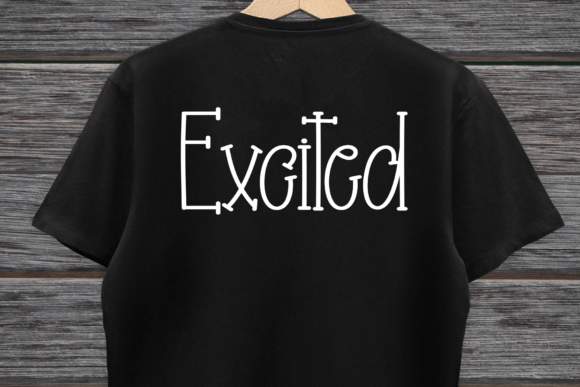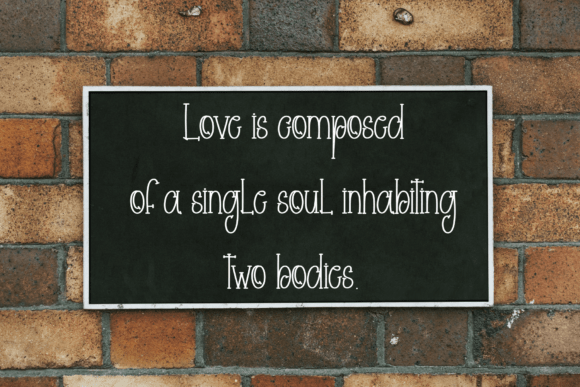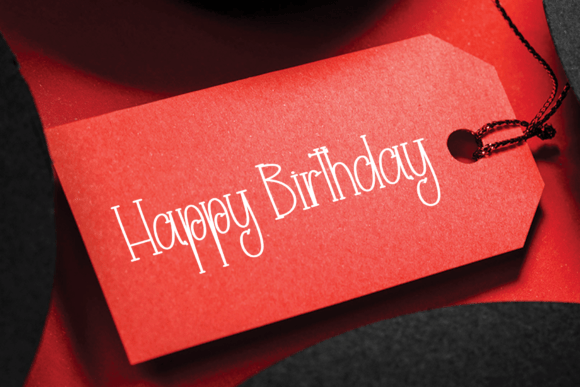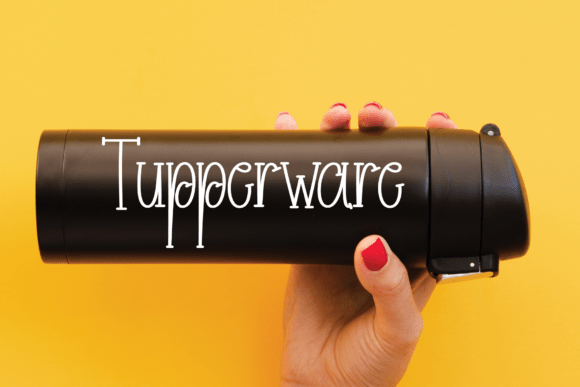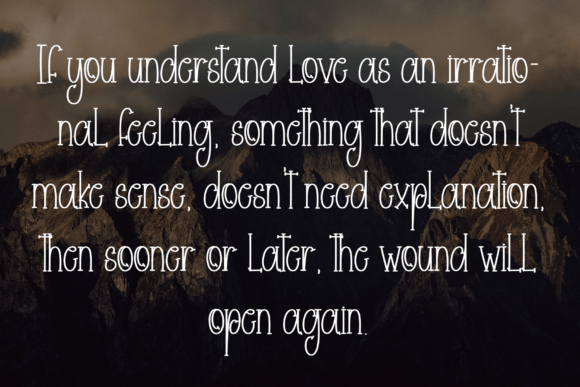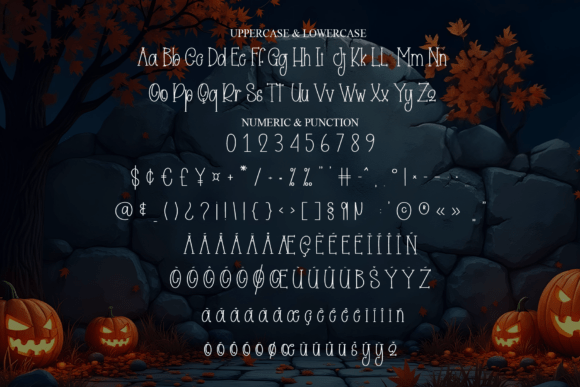
Unleash the Spookiness: A Comprehensive Guide to Background Halloween Fonts
Halloween is just around the corner, and with it comes the excitement of creating spooky and fun designs for invitations, cards, and other creative projects. One of the key elements in creating a captivating design is the font used. In this article, we’ll explore the world of Background Halloween Fonts and introduce you to a delightful alternative, Sweet Handscript, a joyfully charismatic hand-drawn display font.
The Power of Fonts in Design
Fonts play a crucial role in design, as they can make or break the overall aesthetic and feel of a project. When it comes to Halloween designs, the right font can evoke a sense of spookiness, eeriness, or playfulness. Background Halloween Fonts, in particular, can add a unique touch to your designs, setting the tone for a thrilling and unforgettable experience.
Introducing Sweet Handscript: A Joyful Alternative
While Background Halloween Fonts are perfect for creating spooky designs, Sweet Handscript offers a refreshing alternative. This hand-drawn display font is designed to bring a sense of fun and amiability to any canvas. Its endearing design effortlessly infuses every design scenario with a whimsical touch that is undeniably captivating. Whether you’re crafting elegant wedding invitations or playful cards, Sweet Handscript is the perfect choice.
Characteristics of Sweet Handscript
- Hand-drawn charm: Sweet Handscript boasts a unique, handcrafted feel that adds warmth and personality to your designs.
- Whimsical touch: Its playful design injects a sense of fun and amiability into any project.
- Elegant and playful: Perfect for creating elegant wedding invitations, playful cards, or any design that requires a touch of sophistication and whimsy.
- Captivating: Its endearing design effortlessly captures the attention of your audience, making your designs unforgettable.
Why Choose Sweet Handscript for Your Halloween Designs?
While Background Halloween Fonts are perfect for creating spooky designs, Sweet Handscript offers a unique approach to Halloween design. Its playful and whimsical touch can add a refreshing twist to traditional Halloween designs. Use Sweet Handscript to create:
- Playful Halloween invitations: Add a touch of fun and whimsy to your Halloween invitations, making them perfect for kids’ parties or casual gatherings.
- Spine-tingling party cards: Create eye-catching party cards that will leave your friends and family eager to join in on the fun.
- Eerie yet elegant Halloween decorations: Use Sweet Handscript to add a touch of sophistication to your Halloween decorations, making them perfect for adults’ gatherings or formal events.
Tips for Pairing Sweet Handscript with Background Halloween Fonts
For a unique and captivating design, consider pairing Sweet Handscript with Background Halloween Fonts. Here are some tips to get you started:
- Mix and match: Combine Sweet Handscript with a Background Halloween Font to create a striking contrast that adds visual interest to your design.
- Balance playfulness and spookiness: Use Sweet Handscript to balance out the spookiness of a Background Halloween Font, creating a design that’s both fun and eerie.
- Experiment with font sizes and styles: Play around with different font sizes and styles to create a visually appealing design that showcases the best of both fonts.
In conclusion, Background Halloween Fonts are a great way to add a spooky touch to your designs. However, Sweet Handscript offers a refreshing alternative that’s perfect for creating playful and whimsical designs. With its hand-drawn charm, whimsical touch, and captivating design, Sweet Handscript is sure to enrich your designs with warmth and an enchanting flair. So, fall in love with its unique charm and experience the delight of creating unforgettable designs.
Whether you’re a designer or crafter, Sweet Handscript is a must-have font in your collection. So, why not give it a try and see how it can elevate your Halloween designs to the next level?